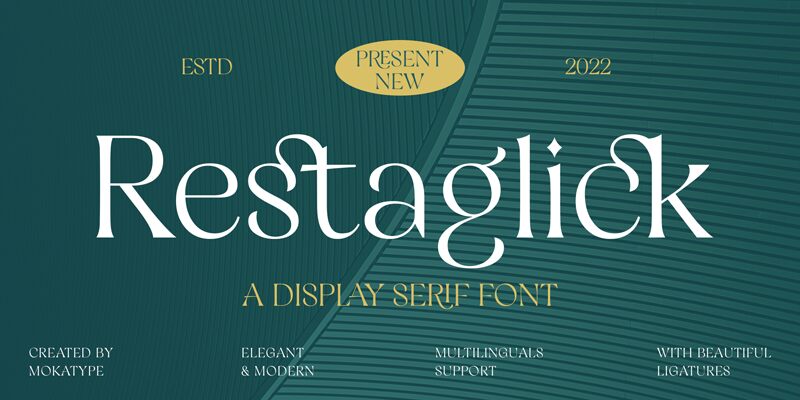
Restaglick
Restaglick, a captivating serif font crafted by Moka Type Studio, exudes a timeless elegance with its refined, yet bold strokes. This typeface boasts a harmonious balance of classical refinement and modern flair, making it a versatile choice for a wide range of design applications.
The Restaglick font's distinctive character lies in its striking contrast between thick and thin lines, creating a visually dynamic and engaging aesthetic. The carefully curated serifs add a touch of sophistication, while the overall form conveys a sense of authority and confidence. This typeface's unique blend of traditional and contemporary elements make it an excellent choice for projects seeking to evoke a sense of prestige, elegance, and timelessness.